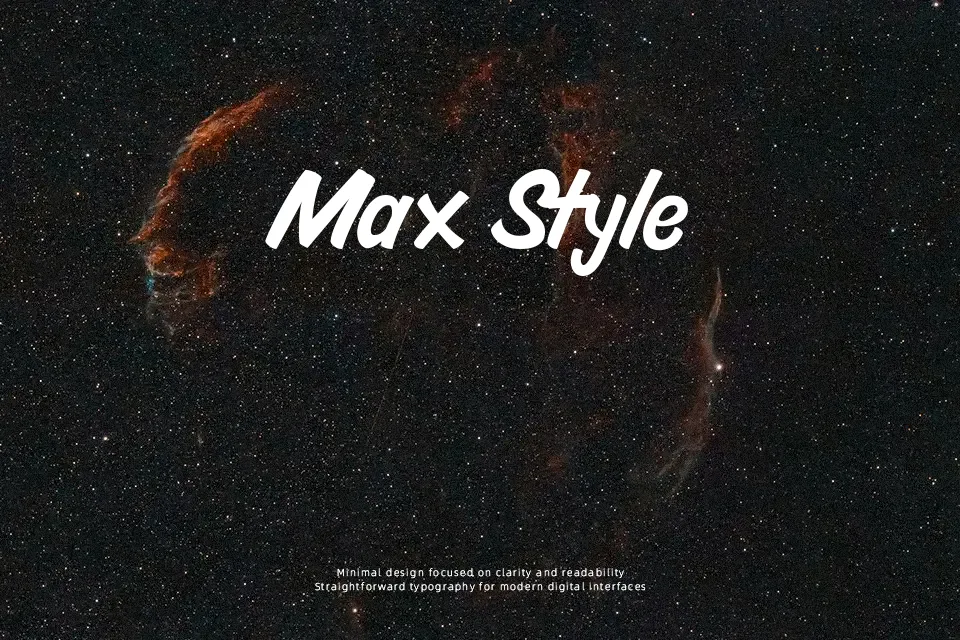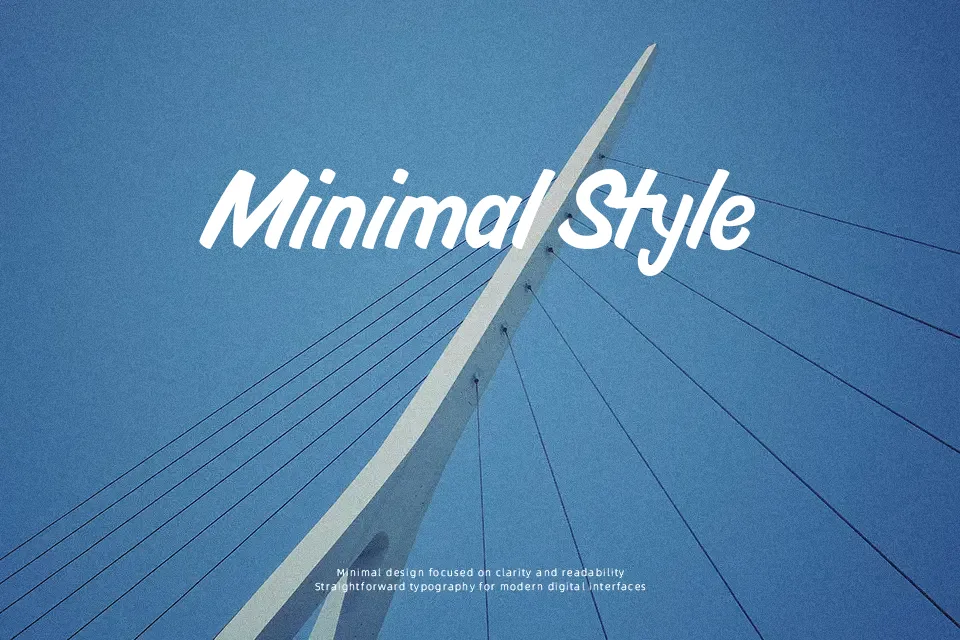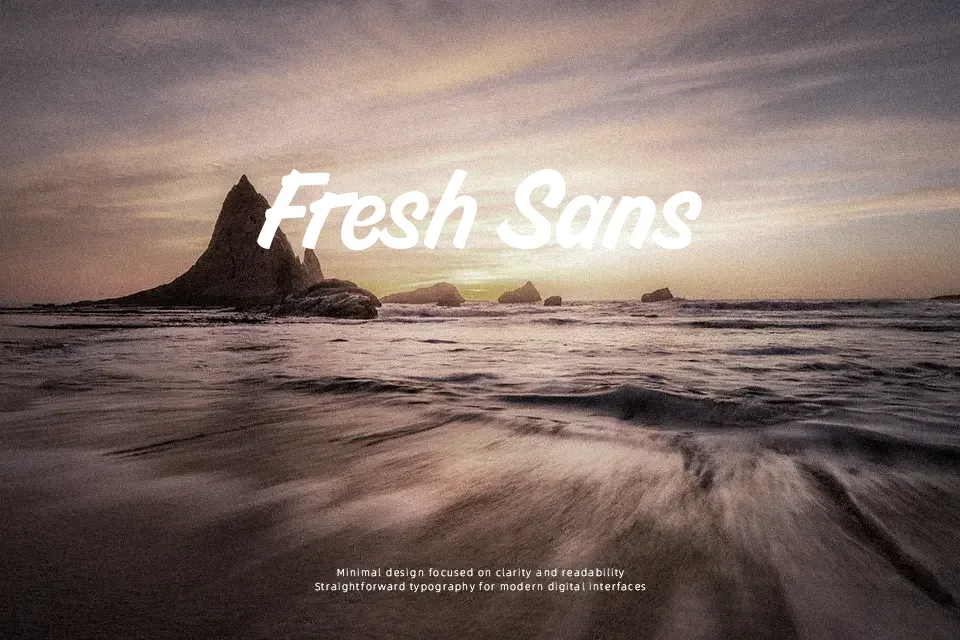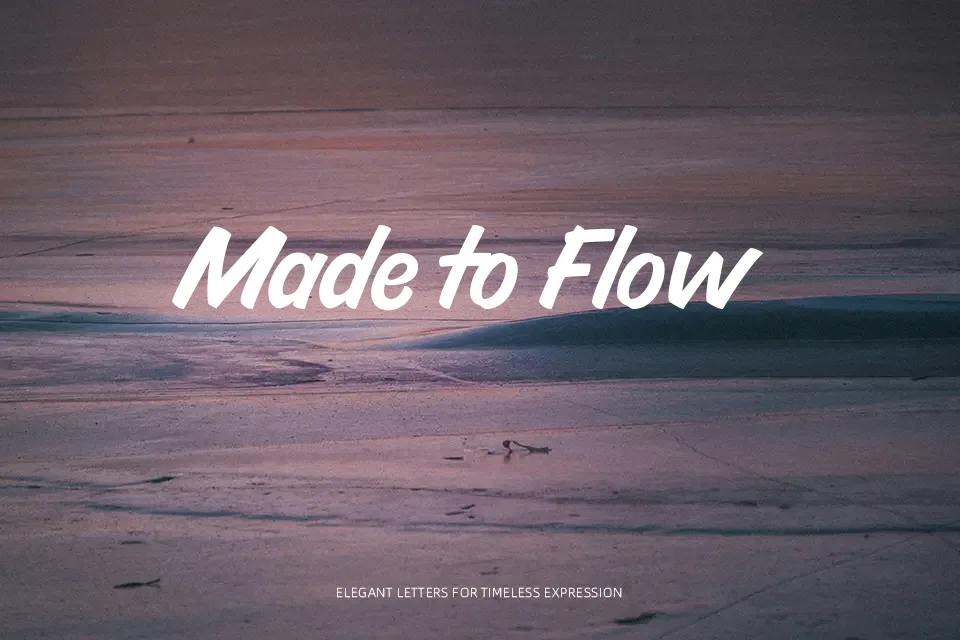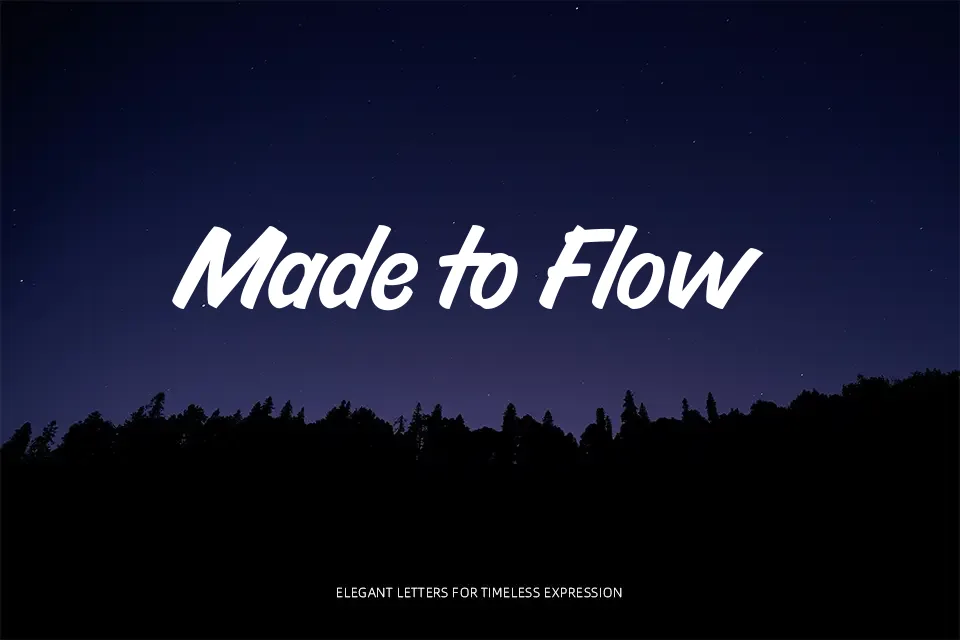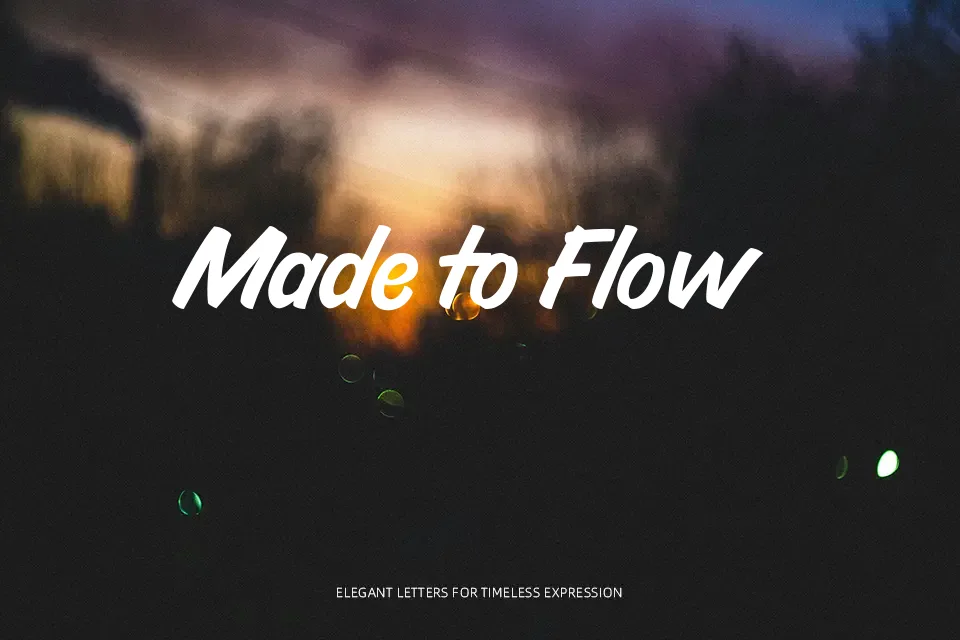
Blocco Font
Designed by ilhamtaro
Blocco is an energetic, thick-stroked script font created by type designer Ilhamtaro. Characterized by a robust weight, slightly slanted posture, and playful comic-inspired curves, it commands attention while maintaining excellent legibility. The balanced interplay between uppercase and lowercase letters creates a distinct sense of movement. This vibrant display typeface easily handles prominent branding, youth-oriented packaging, and impactful poster designs requiring a friendly yet confident voice. However, its heavy, stylized nature makes it unsuitable for lengthy paragraphs, formal corporate documents, or minimalist layouts where subtle typography is essential. It shares visual traits with casual sign-painter lettering but delivers a chunkier, more modern twist.
– Eye-catching event posters and banners
– Playful lifestyle and youth branding
– Engaging social media campaign graphics
– Bold merchandise and apparel design
– Small printed body text
– Formal corporate communications
– Minimalist luxury branding
– Complex data tables or user interfaces
Perfect for branding, headline, and logo, with a bold and comic style.